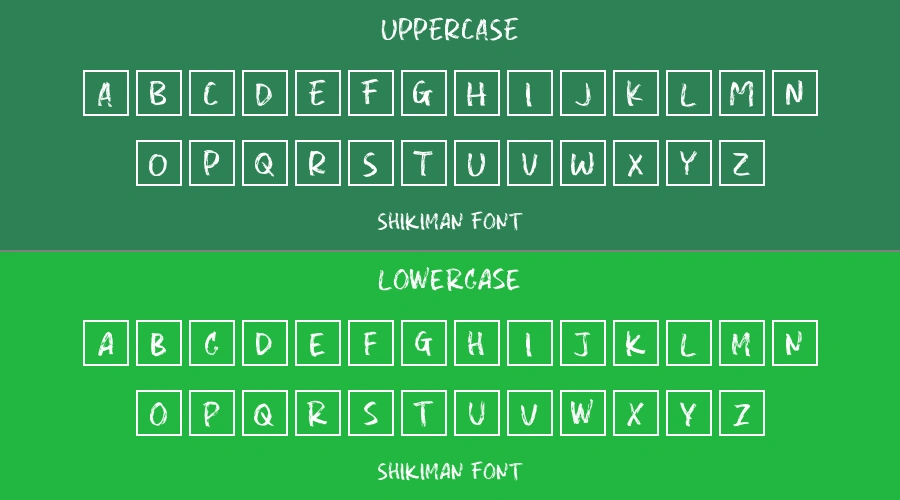
About Shikiman Font
Shikiman Font represents a sophisticated approach to type design, balancing decorative elements with distinctiveness. Perfect for event branding, this font family showcases impressive durability and professional authority throughout its character set. Designers appreciate its versatility and reliability.
Designers will appreciate nuanced touches including tapered strokes and arrow sets, adding sophistication to any project. These features become apparent in body text, where small text clarity matters most. The careful treatment of descender depth and market position ensures optimal performance.